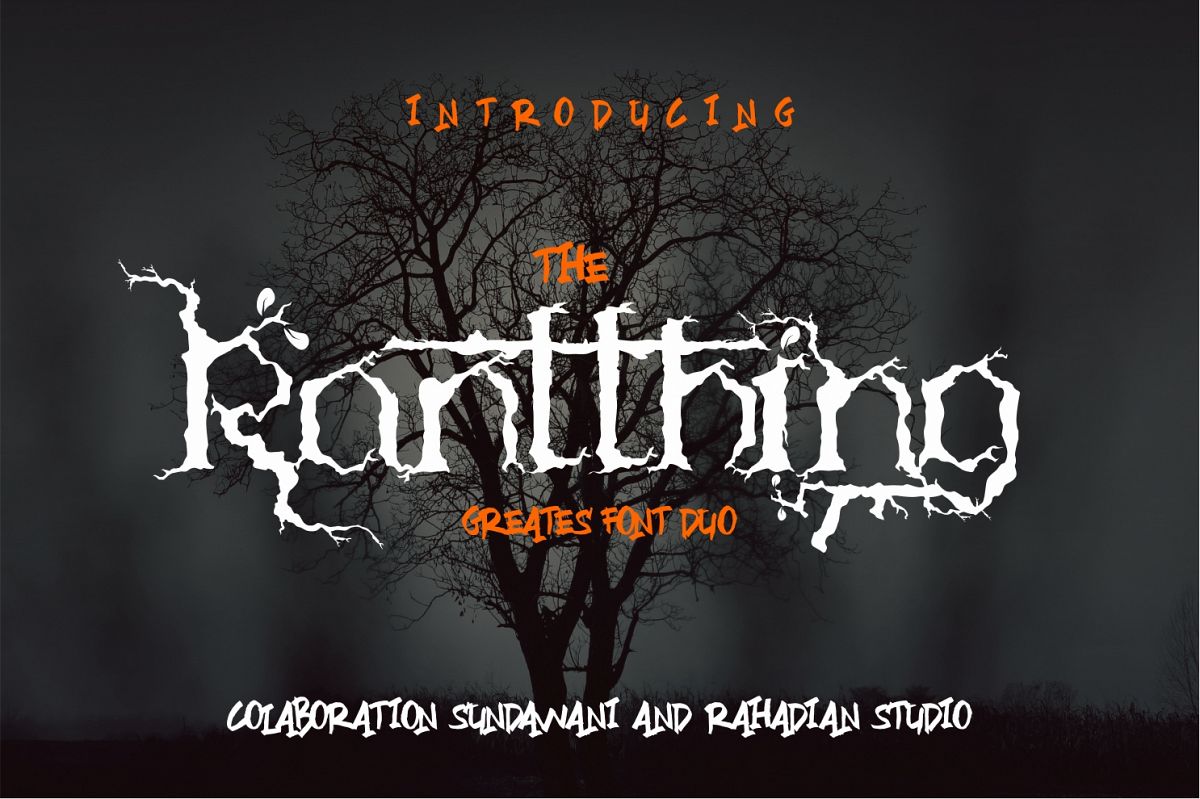
The Ranthing
RanthingBonus-Regular
Ranthing-Regular
The Ranthing is a 100% handmade typeface. Brought to give you a professional, creative, and bold looks for you designs.Features:
• Lower Case
• Upper Case
• Punctuation
• Numbers and Symbols
• Multi Languages
• More Then 100 Stylistic Set
The Ranthing